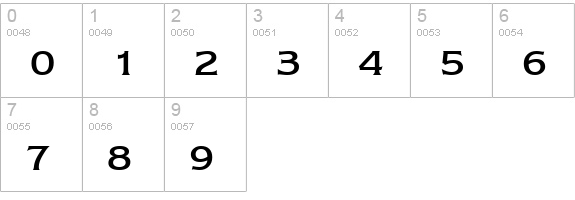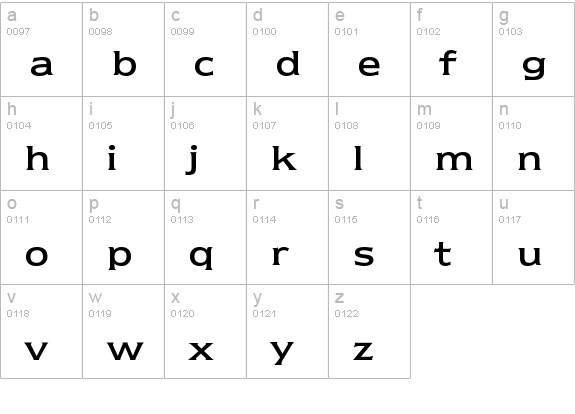
Newtext Regular BT is the standard, neutral variant in the Newtext typeface family \xE2\x80\x94 well suited to general body text, paragraphs, and standard typographic work.
Newtext Regular BT font is a versatile and modern typeface that is perfect for a wide range of design projects. With its clean lines and legible letterforms, this font is ideal for both print and digital applications. Whether you're creating a logo, a website, or a poster, Newtext Regular BT font will give your designs a polished and professional look. What's even better is that this font is available for free download at FontsMarket.com. You can easily access this high-quality font and use it in your projects without any cost. Don't miss out on the opportunity to enhance your designs with Newtext Regular BT font - download it today and start creating stunning visuals.